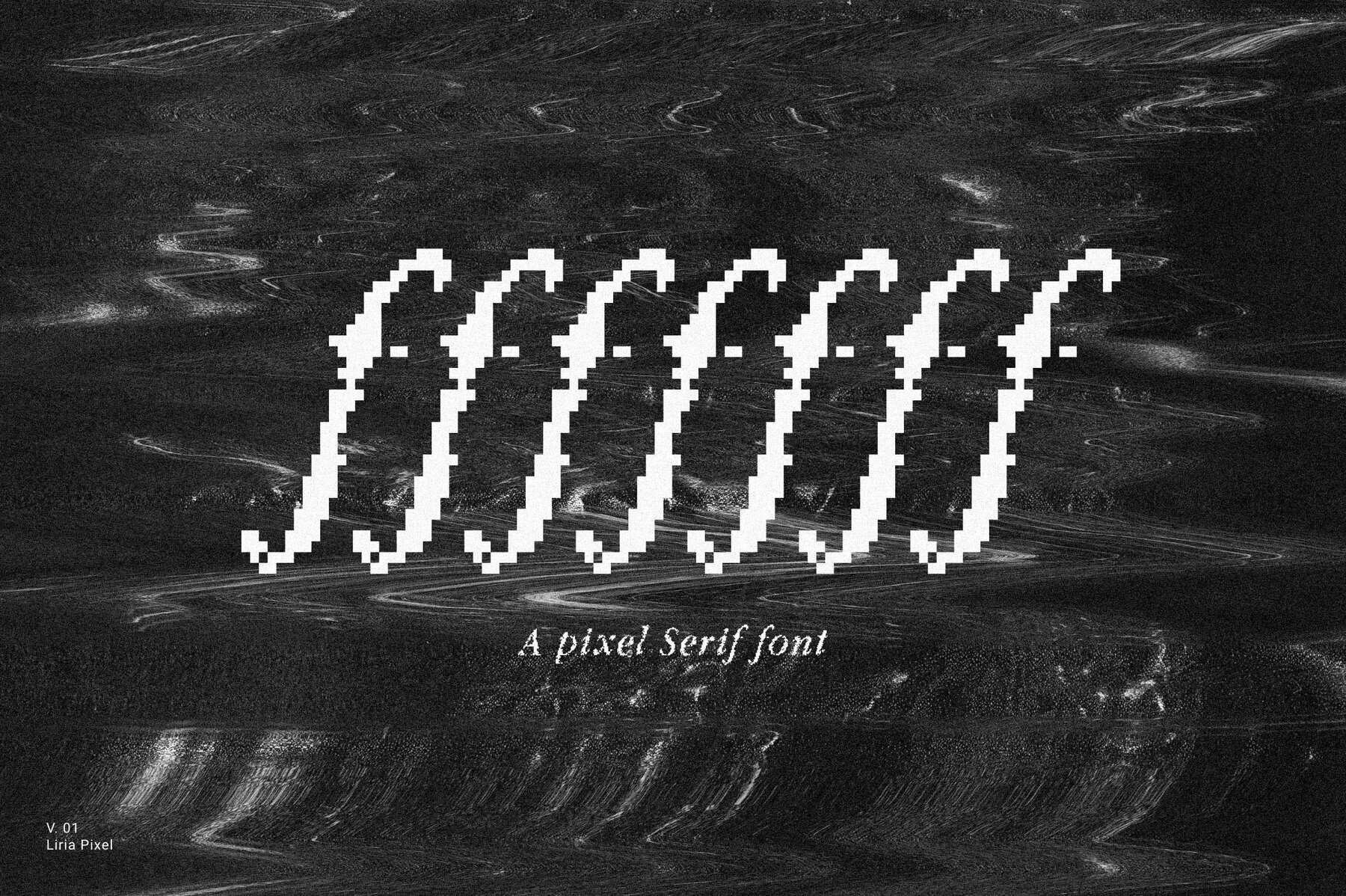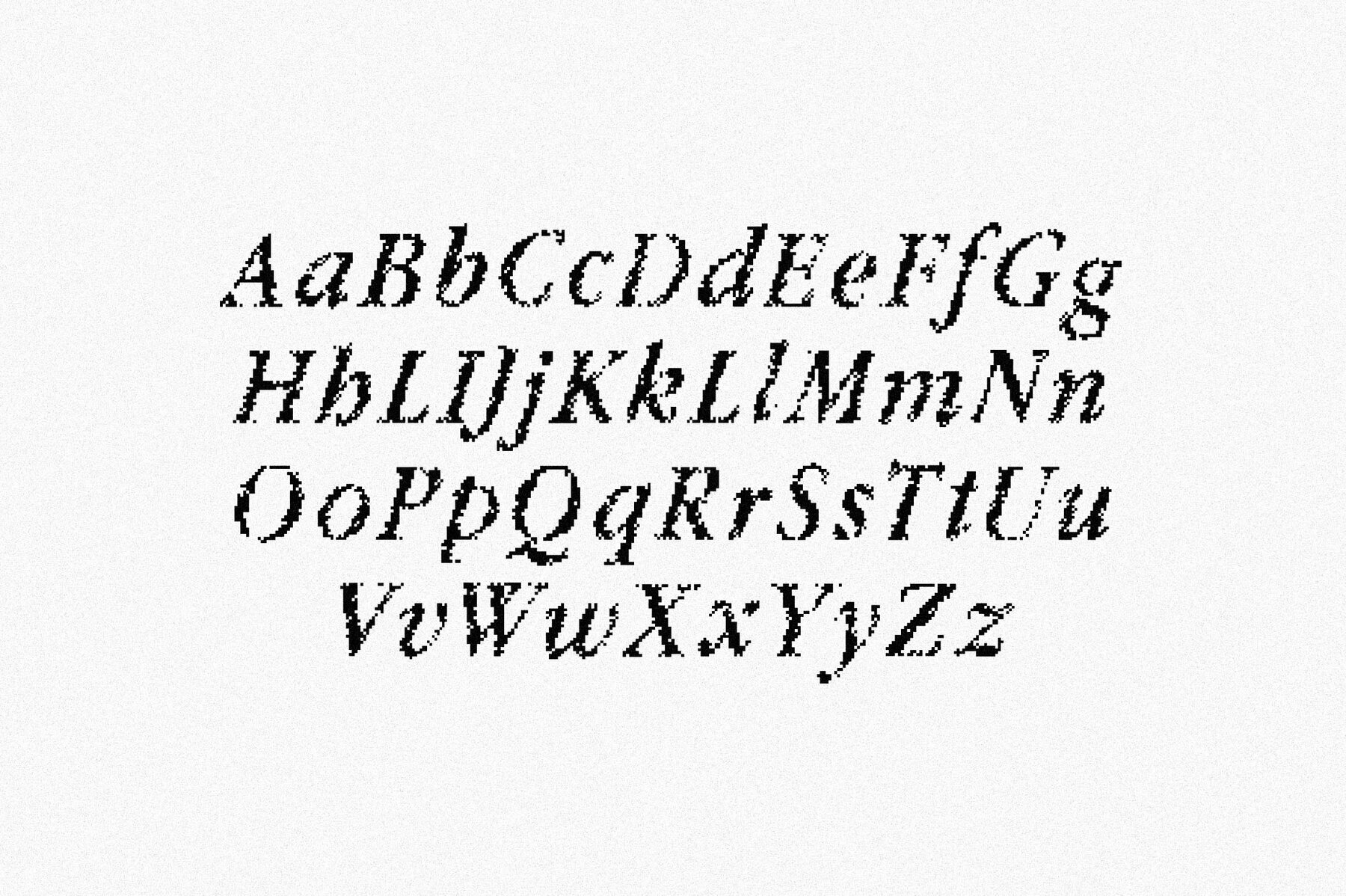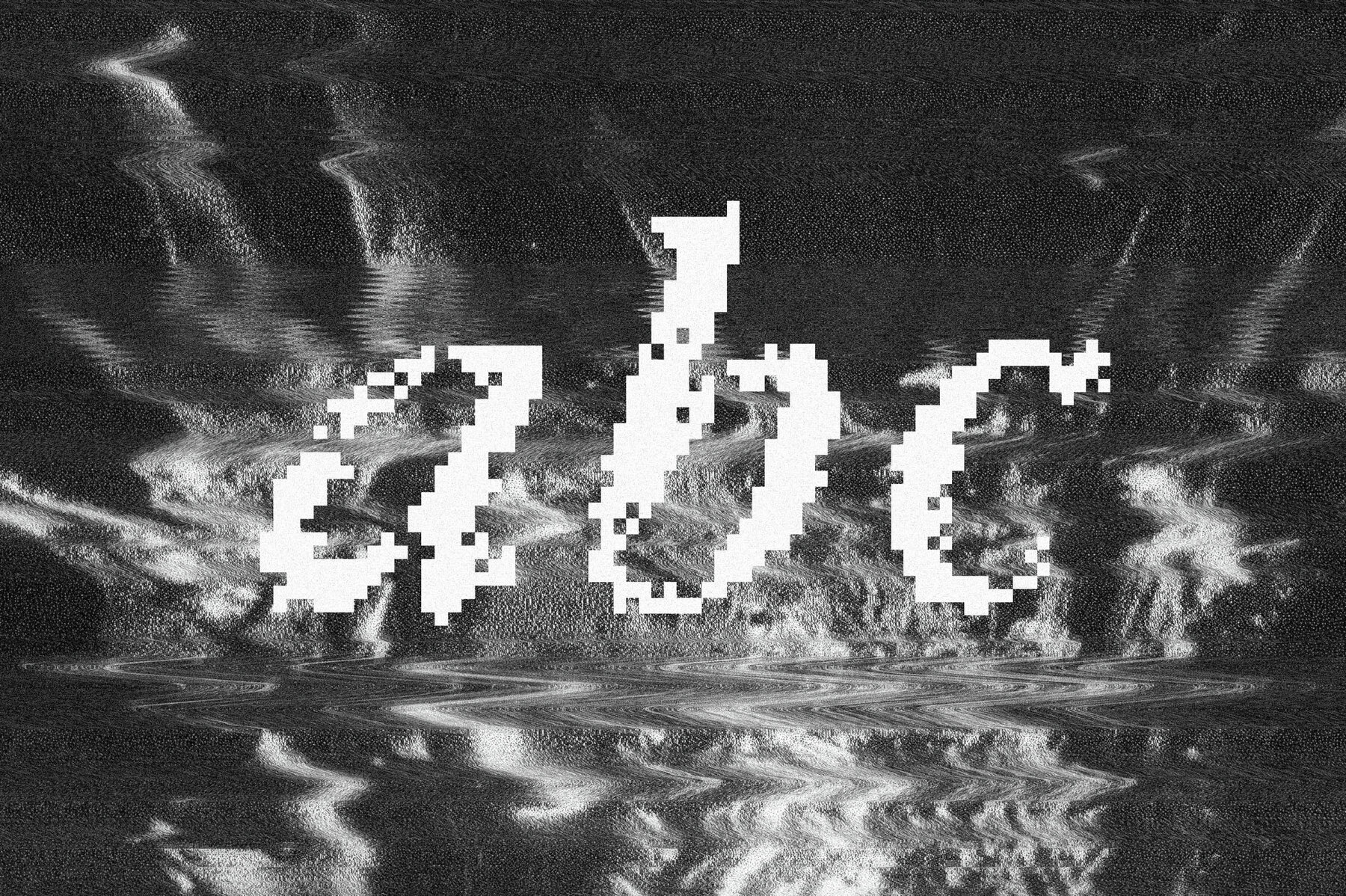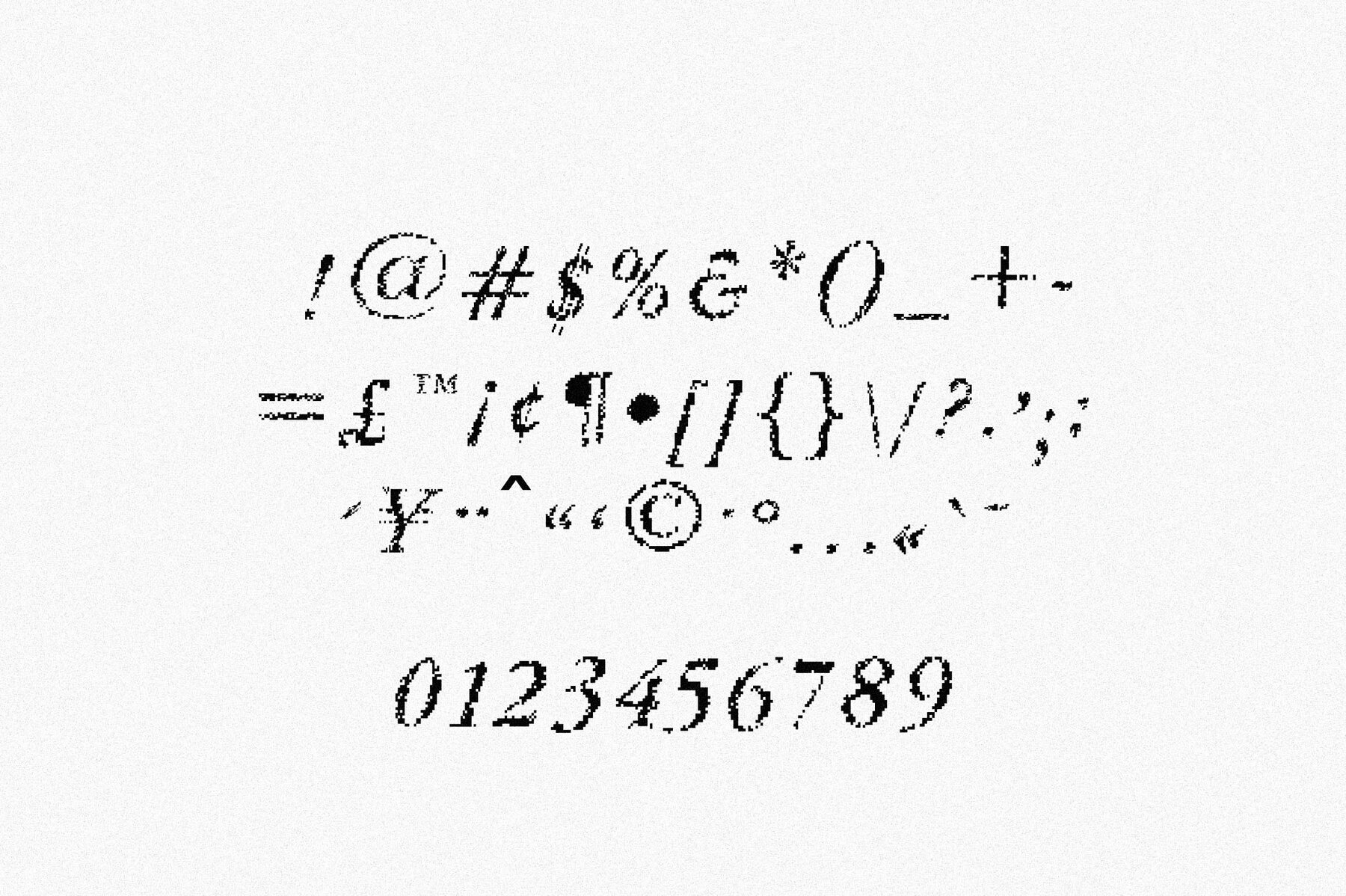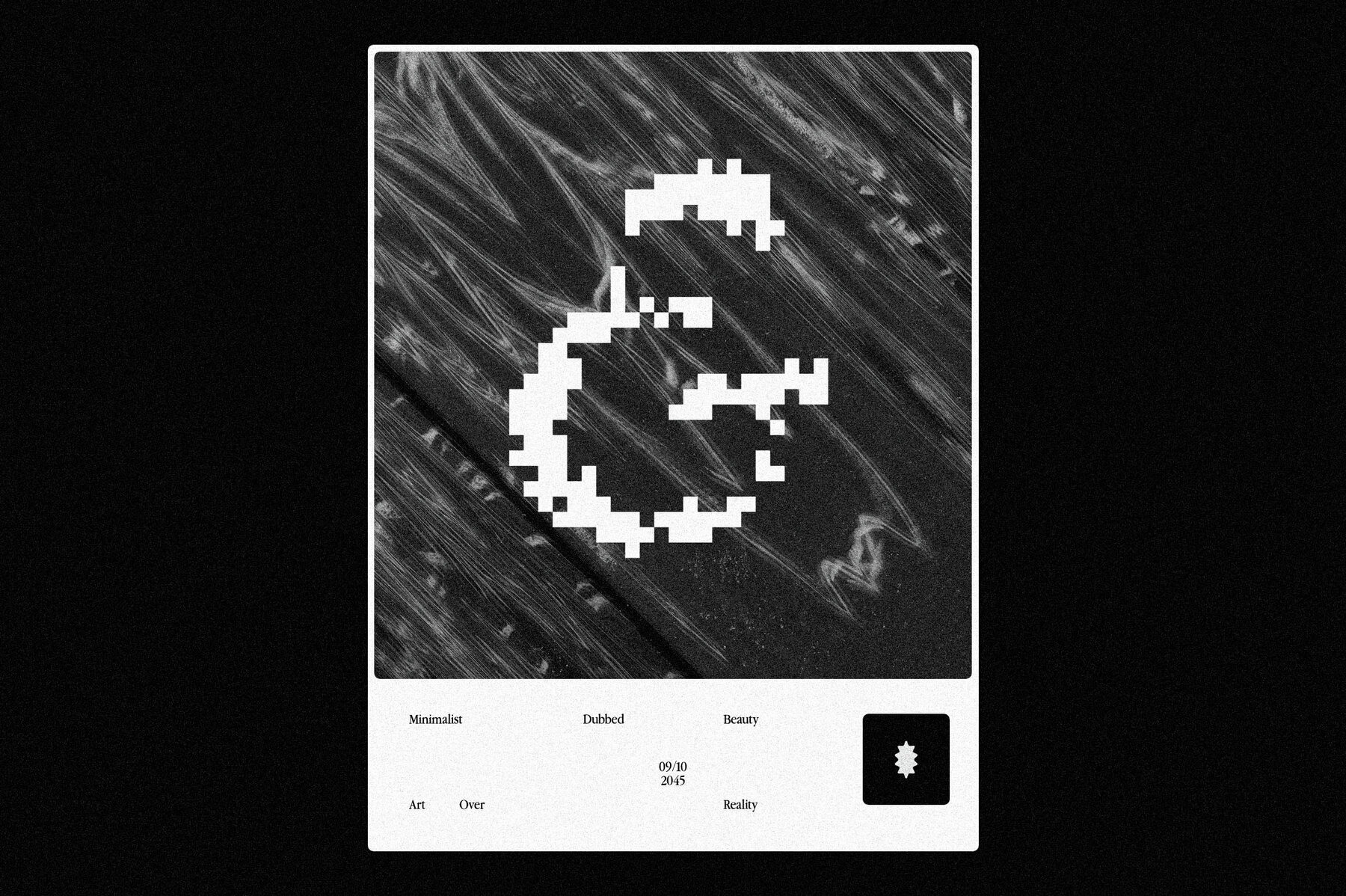
Fffffff Pixel Serif Font
Fffffff
The fffffff Pixel Serif Font is a unique blend of classic serif elements with a modern pixelated style, ideal for creative projects that require a touch of digital flair.fffffff Pixel Serif Font: Distinct Serif with a Digital Edge
Typeface Features